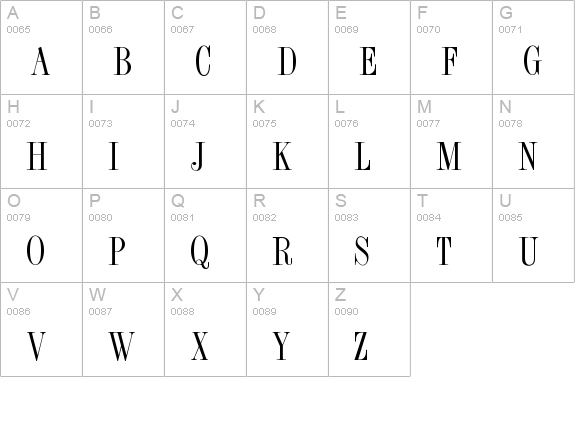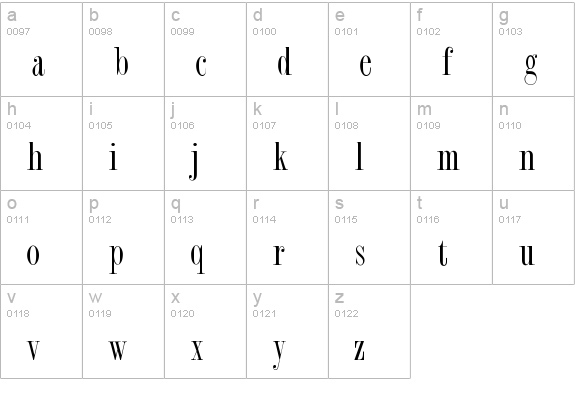
Houston Font Details
The Houston font is a sleek and modern typeface that exudes sophistication and elegance. Its clean lines and contemporary design make it a versatile choice for a wide range of projects, from branding to editorial design. The Houston font is free to download at FontsMarket.com, making it accessible to designers and creatives looking to elevate their work with a touch of sophistication. With its timeless appeal and easy readability, the Houston font is sure to make a lasting impression on any design project.